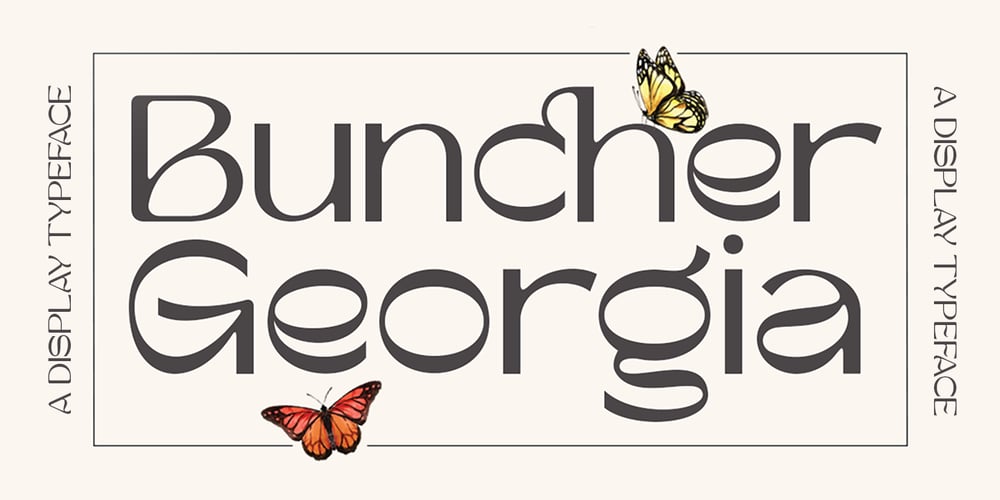
Buncher Georgia
Buncher Georgia font
Buncher Georgia Font Family was designed by Fajar Gunawan and published by Fargun Studio. Buncher Georgia contains 1 styles and family package options. Buncher Georgia is a vintage display typeface inspired by the art of ancient decoration which is suitable for retro-style designs with ancient concepts.File IncludedMultilingual